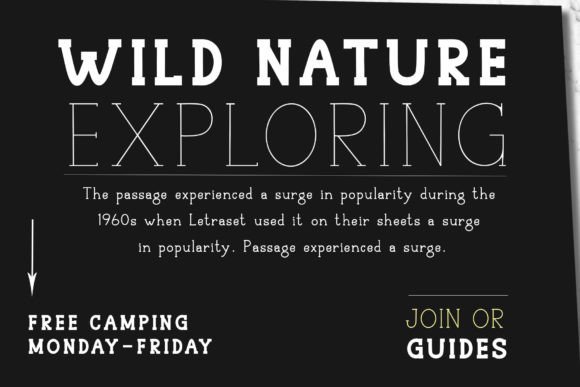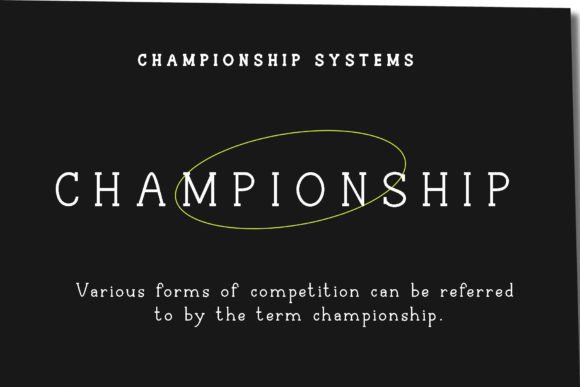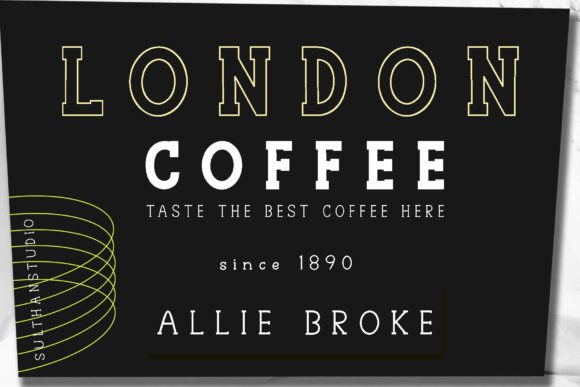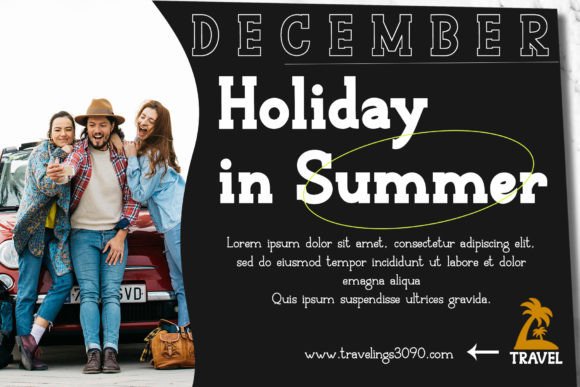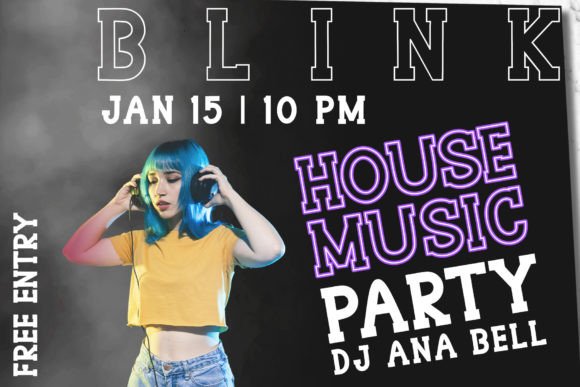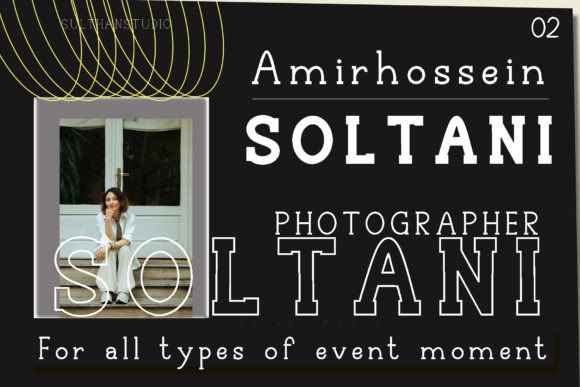
Introducing Chartist Font: A Versatile Handmade Slab Serif Font
Are you a designer or crafter looking for a unique and versatile font to elevate your creative projects? Look no further than Chartist Font, a handmade slab serif font that offers a range of aesthetic sketches and variants to help you achieve the perfect look. With its ease of use and flexibility, Chartist Font is the perfect addition to your font collection.
A Font with Endless Possibilities
Chartist Font is more than just a font – it’s a design tool that offers a range of possibilities. This handmade slab serif font comes with several different variants, including sketch, regular, bold, and outline. This means that you can create a wide range of designs, from subtle and elegant to bold and eye-catching. Whether you’re working on a logo, branding project, or craft project, Chartist Font has got you covered.
Key Features of Chartist Font
- Handmade with love: Chartist Font is a unique, handmade font that has been crafted with attention to detail and a passion for design.
- Slab serif design: The font features a classic slab serif design that adds a touch of elegance and sophistication to any project.
- Multiple variants: With sketch, regular, bold, and outline variants, you can create a wide range of designs and effects.
- Ease of use: Chartist Font is easy to use and combine with other fonts, making it perfect for designers and crafters of all levels.
- Versatile: The font is versatile enough to be used in a wide range of projects, from logos and branding to crafts and DIY projects.
How to Use Chartist Font
Chartist Font is perfect for designers and crafters who want to add a touch of elegance and sophistication to their projects. Here are a few ideas to get you started:
- Logo design: Use Chartist Font to create a unique and memorable logo for your brand or business.
- Branding: Create a cohesive brand identity with Chartist Font, using the different variants to create a range of materials, from business cards to billboards.
- Craft projects: Add a touch of elegance to your craft projects, such as handmade cards, invitations, and gift tags.
- DIY projects: Use Chartist Font to create custom signs, labels, and other DIY projects for your home or office.
| Font Name | Chartist Font |
| Author | Sulthan Studio |
Chartist Font is a versatile and unique handmade slab serif font that offers a range of possibilities for designers and crafters. With its ease of use and flexibility, it’s the perfect addition to your font collection. Whether you’re working on a logo, branding project, or craft project, Chartist Font has got you covered. So why wait? Download Chartist Font today and start creating something amazing!